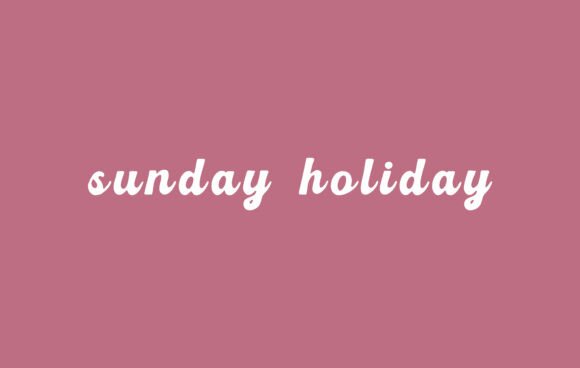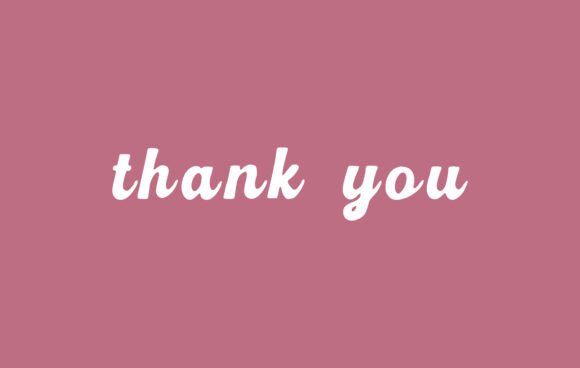
Have you ever found yourself sitting in front of a blank canvas, struggling to bring your creative vision to life? That’s where the perfect font can make all the difference. For designers, the right font can elevate a project from good to great, and that’s exactly what the Shiloh Font promises to deliver.
With its authentic handwritten style and romantic touch, the Shiloh Font is a high-quality design resource that’s perfect for a wide range of creative projects. Whether you’re working on a magazine headline, social media campaign, or wedding invitation, this font is sure to make a lasting impression. Plus, its legibility makes it a great choice for body text, too.
- High-quality, unique font design with a mix of modern and classic elements, suitable for creative projects.
- Perfect for use in logos, branding, and other creative projects where a unique and stylish font is desired.
I recently had the chance to work with the Shiloh Font, and I must say, it’s been a game-changer for my creative project. As a designer, I’m always on the lookout for high-quality fonts that can elevate my designs and give me an edge. The Shiloh Font delivers on this front, offering a wide range of styles and weights that are perfect for various design projects.
One of the standout features of the Shiloh Font is its transparent background, which makes it incredibly versatile. I’ve used it for everything from branding materials to digital graphics, and it’s performed flawlessly each time.
- ✨ Wide range of styles and weights to suit different design needs
- ⚠️ May not be suitable for very small text sizes due to its bold design
Overall, I’m thoroughly impressed with the Shiloh Font. Its high-quality design, transparent background, and wide range of styles make it an excellent addition to any designer’s toolkit. If you’re looking for a reliable and versatile font for your creative project, I highly recommend giving the Shiloh Font a try.
For optimal use, pair the Shiloh Font with a high-quality image or background. Experiment with different font sizes and styles to create a visually appealing design. Consider using the font in a creative project that requires a design resource with a transparent background.
Shiloh Font is commonly used in wedding invitations, event branding, and social media graphics. Its elegant and modern design makes it a popular choice for designers looking for a high-quality font for their creative projects.